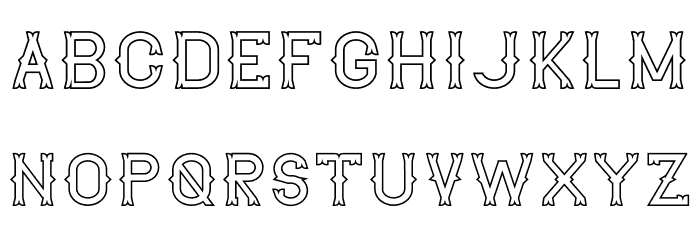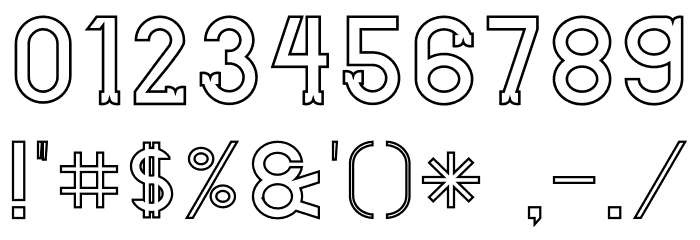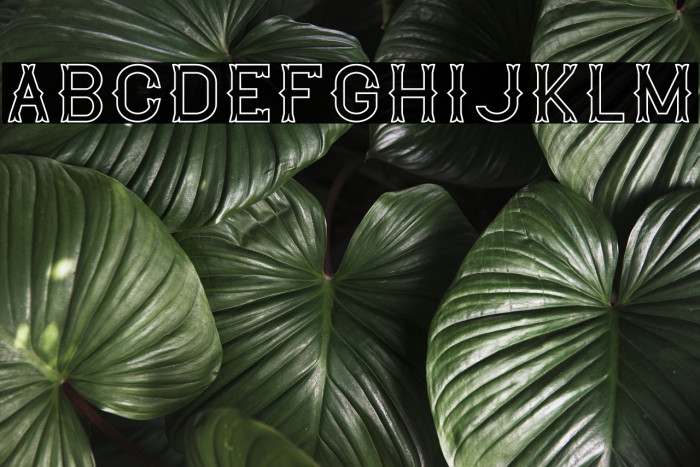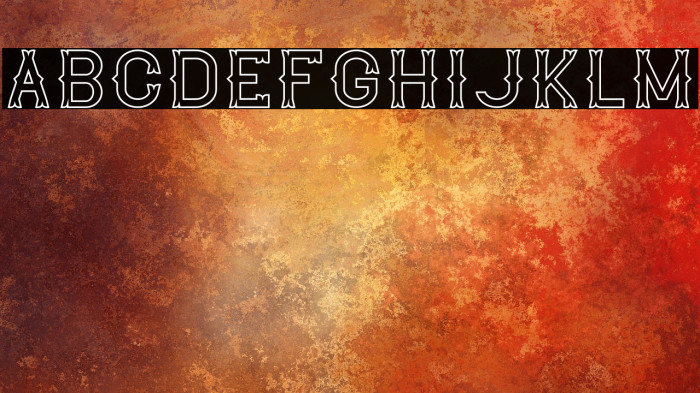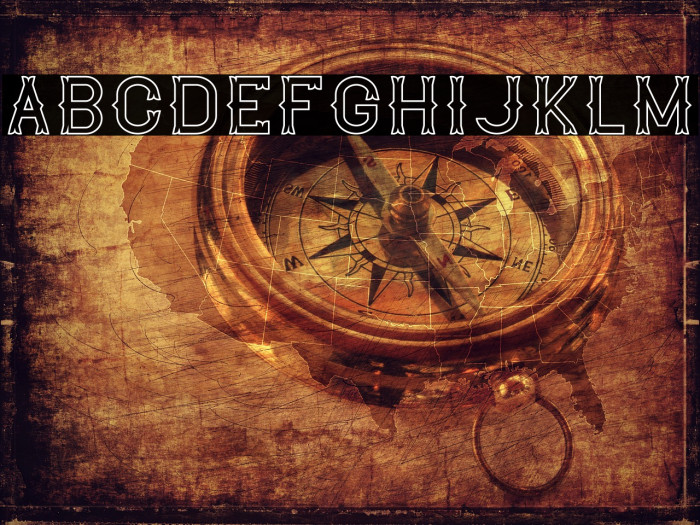
The Lekker Outline Font
This font features a bold, outlined style with a geometric and structured appearance. The uppercase letters are uniform in height, with sharp angles and clean lines that give a modern and industrial feel. The numbers and special characters maintain the same outlined aesthetic, ensuring consistency across all glyphs. The font's design is both eye-catching and versatile, suitable for various creative applications. Its distinct outline makes it ideal for use in designs where a strong visual impact is desired. The spacing between characters is balanced, providing a harmonious flow in text compositions.
A bold, outlined font with a geometric and modern style.
- Proposed Projects: Ideal for branding, posters, headlines, and any design requiring a strong visual impact.